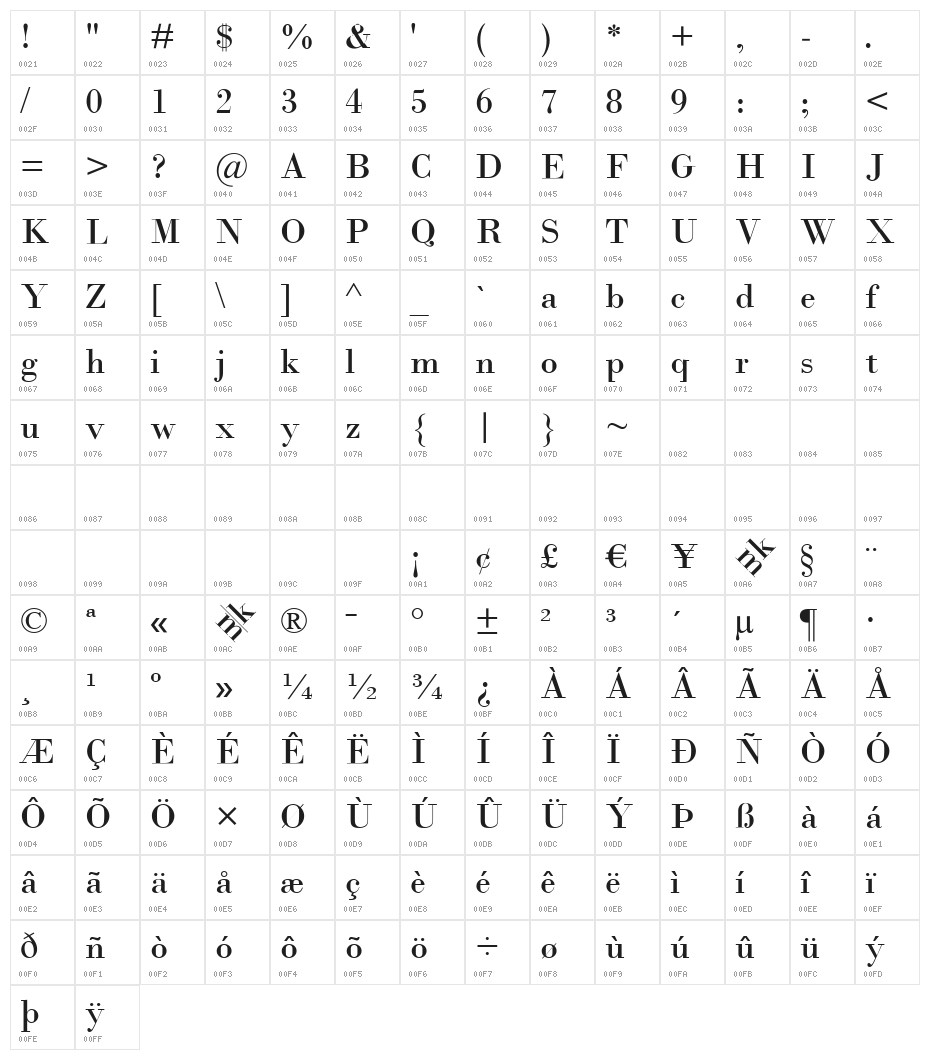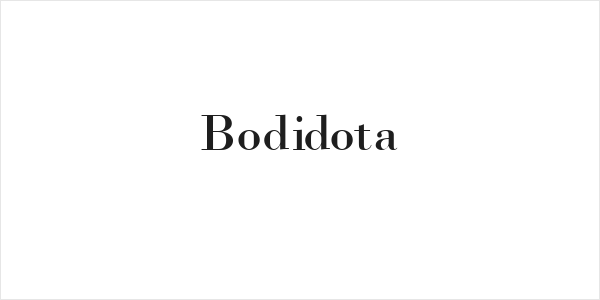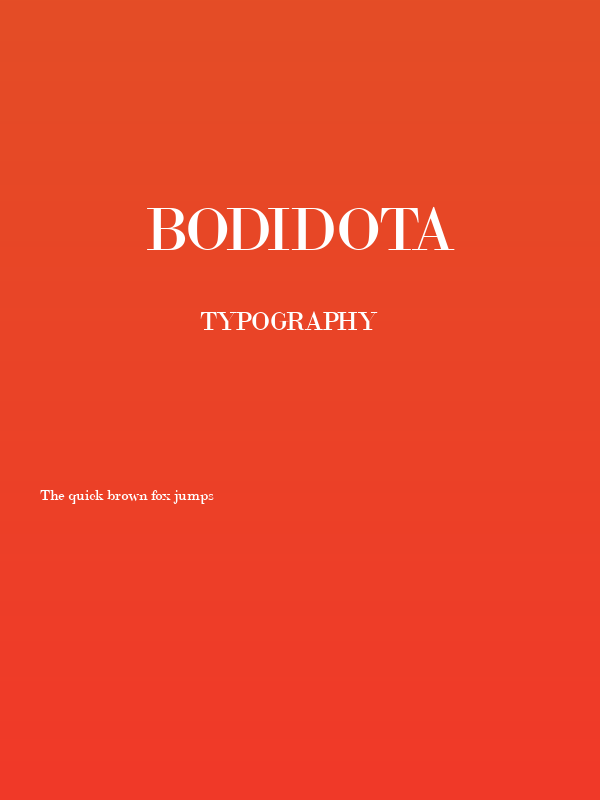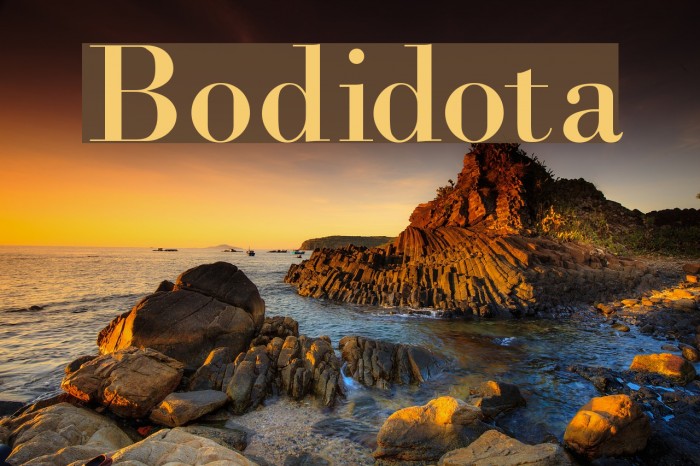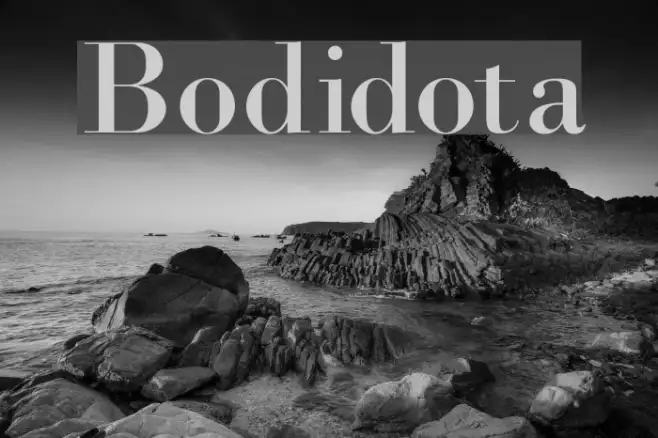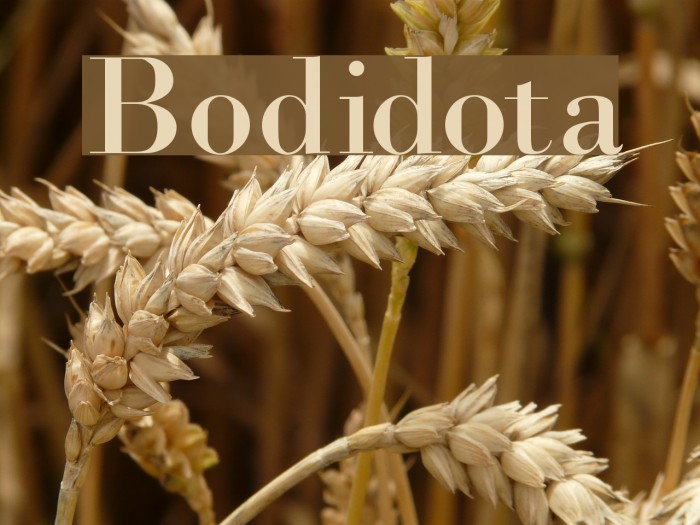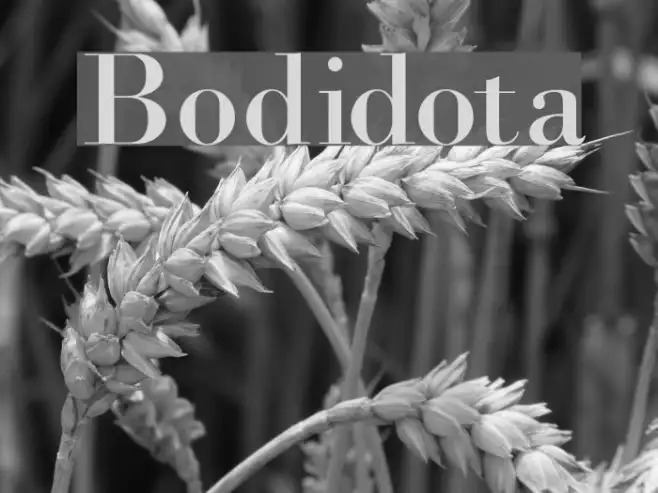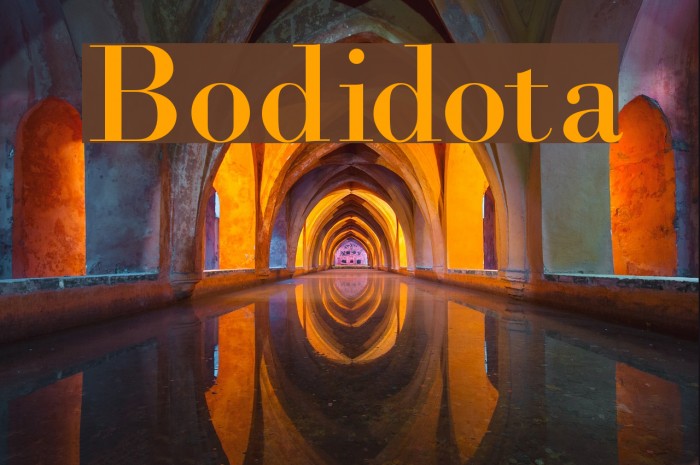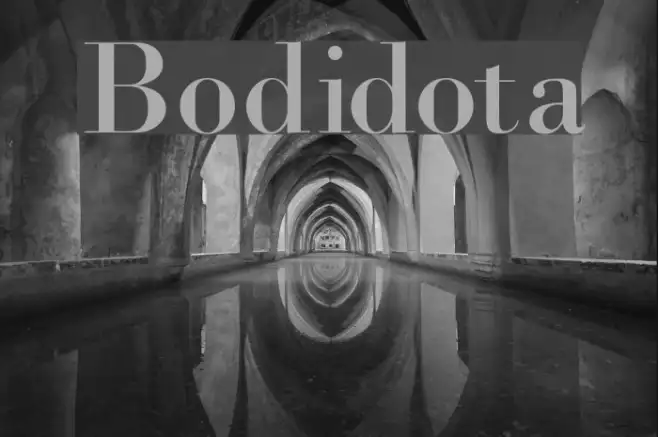
Bodidota Font
Bodidota Description
This font features a classic serif style with high contrast between thick and thin strokes, giving it an elegant and sophisticated appearance. The serifs are pronounced and sharp, adding a touch of formality and tradition. The uppercase letters are tall and commanding, while the lowercase letters maintain a consistent and harmonious flow. The numerals are well-proportioned, and the special characters are designed with the same attention to detail, ensuring a cohesive look across all glyphs. This font is ideal for projects that require a touch of elegance and readability.
| Overall Style | Classic |
| Use Case | Headlines, Body text, Logos |
| Proposed Projects | Ideal for editorial design, book covers, formal invitations, and branding projects that require a touch of sophistication. |